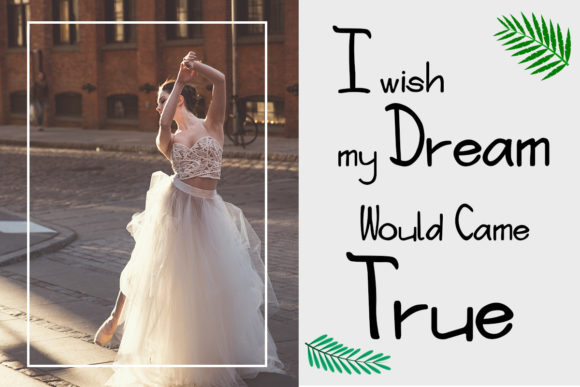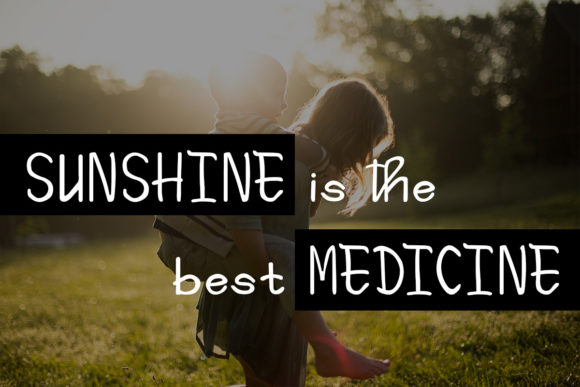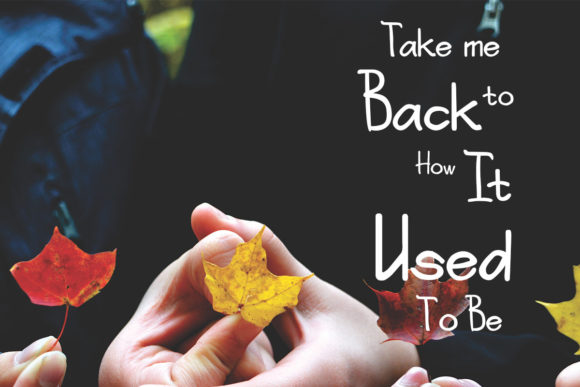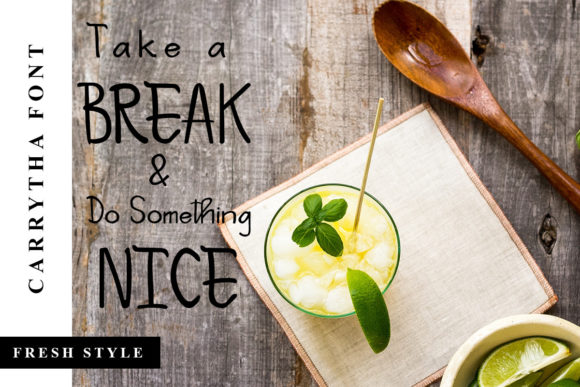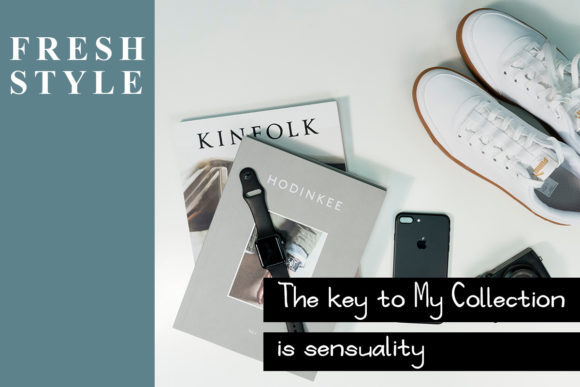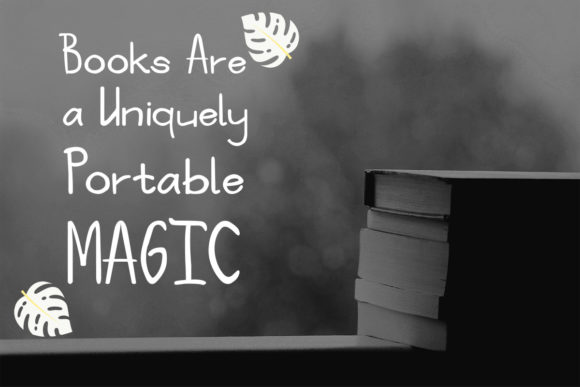
Introducing Carrytha Font: Elevate Your Designs with Elegance and Sophistication
Carrytha Font is a beautiful, simple, and elegant handwritten font that adds a cool feel to any design project. Its unique charm and character make it an excellent choice for designers and crafters looking to create standout designs. In this article, we’ll explore the features and benefits of Carrytha Font, and how you can use it to take your designs to the next level.
The Story Behind Carrytha Font
Carrytha Font is a carefully crafted handwritten font that exudes elegance and sophistication. Its simple yet distinctive design makes it perfect for a wide range of design projects, from branding and advertising to packaging and digital media. The font’s creator aimed to produce a font that would be both stylish and versatile, and Carrytha Font certainly delivers.
Key Features of Carrytha Font
- Simple yet Elegant Design: Carrytha Font boasts a clean and minimalist design that makes it easy to read and understand.
- Handwritten Style: The font’s handwritten style adds a personal touch to any design project, making it perfect for brands looking to establish a unique identity.
- Cool Feel: Carrytha Font has a cool and modern feel that will make your designs stand out from the crowd.
- Versatile: The font is suitable for a wide range of design projects, including headings, titles, and body text.
Benefits of Using Carrytha Font
Using Carrytha Font in your design projects offers numerous benefits, including:
- Unique Identity: Carrytha Font helps create a distinctive and recognizable brand identity that sets you apart from competitors.
- Emotional Connection: The font’s handwritten style and elegant design help establish an emotional connection with your audience.
- Improved Readability: Carrytha Font’s clean design ensures excellent readability, making it perfect for body text and headings.
- Time-Saving: The font’s versatility saves you time and effort, as you can use it for multiple design projects.
How to Use Carrytha Font in Your Design Projects
Using Carrytha Font in your design projects is easy and straightforward. Here are some tips to get you started:
- Pair it with Other Fonts: Combine Carrytha Font with other fonts to create a unique and visually appealing design.
- Experiment with Colors: Try out different colors and color combinations to find the perfect match for your design.
- Play with Sizes: Experiment with different font sizes to create visual hierarchy and emphasize important elements.
- Use it for Headings and Titles: Carrytha Font is perfect for headings and titles, adding a touch of elegance and sophistication to your designs.
Who Can Benefit from Carrytha Font?
Carrytha Font is an excellent choice for a wide range of designers and crafters, including:
- Graphic Designers: Use Carrytha Font to create stunning branding and advertising materials.
- Digital Designers: Add a touch of elegance to your digital media designs, including websites and mobile apps.
- Crafters: Use Carrytha Font to create beautiful handmade cards, scrapbook pages, and other craft projects.
- Small Business Owners: Establish a unique brand identity with Carrytha Font and stand out from the competition.
Carrytha Font is a simple yet elegant handwritten font that adds a cool feel to any design project. Its unique charm and character make it an excellent choice for designers and crafters looking to create standout designs. With its versatility, readability, and emotional connection, Carrytha Font is an excellent addition to any design project. So why wait? Try Carrytha Font today and elevate your designs to new heights!